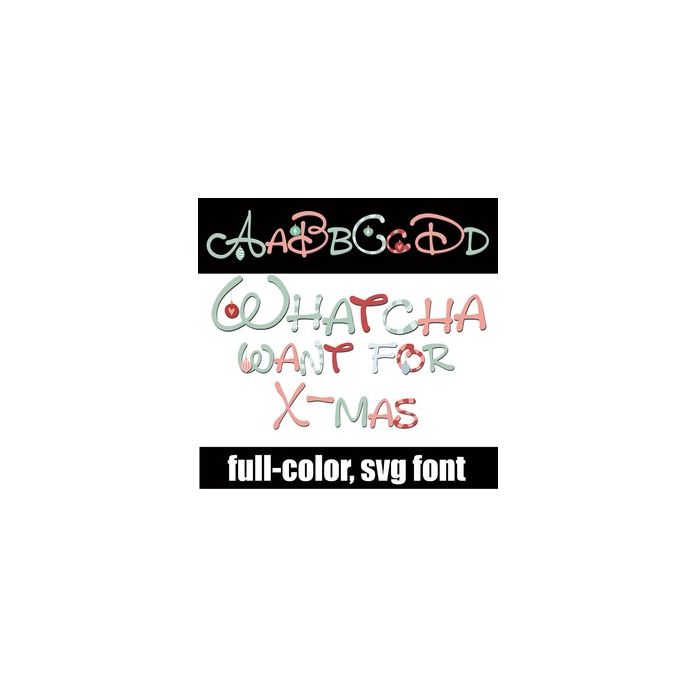
This hand-written print features a whimsical script in a Christmas color palette with ornaments. There is an alt case w/ additional colors you can access through your system or Silhouette's glyph map.